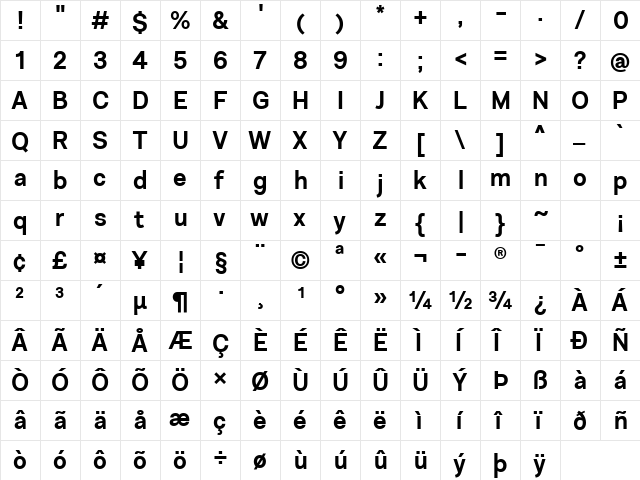
Nurom Bold
| Foundry | The Northern Block |
| Designer | Jonathan Hill, Alessia Mazzarella (extension) |
Design Context for Nurom Typeface
Nurom is a composed and adaptable typeface that performs quietly and consistently across a wide range of design contexts. Its bold stroke weight gives it real presence on the page.